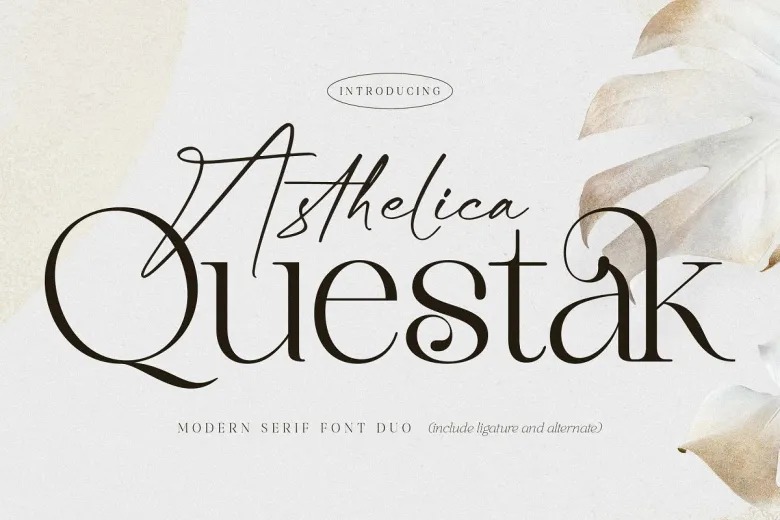
Asthelica Questak Font
Asthelica Questak Font Duo combines the timeless beauty of serif and script styles, offering an elegant and versatile solution for various design needs. This font duo is perfect for projects requiring both classic and modern elements, such as fashion branding, book titles, and magazine layouts. The mix of script and serif fonts provides a sophisticated touch that enhances the overall aesthetic of any design.
This duo is particularly well-suited for classy logos, adding a refined edge to fashion brands and other creative identities. The font’s delicate serif style works beautifully for book and movie titles, giving them an elegant yet readable appearance. Asthelica Questak also enhances magazine letters and quotes, elevating the visual appeal of editorial content with its graceful forms.
With PUA encoding, the font offers extensive design flexibility, including ligatures and symbols, making it easy to customize and create unique typography. The Asthelica Questak Font Duo is perfect for designers seeking a polished, modern, and elegant typeface.